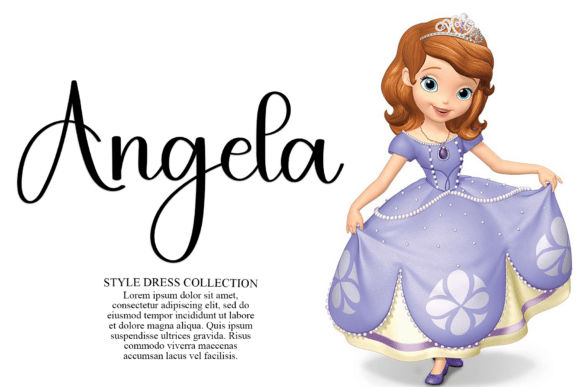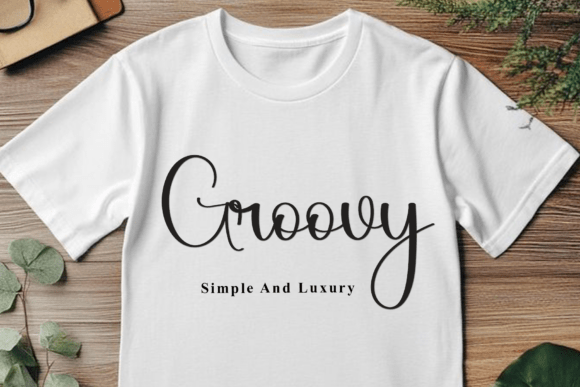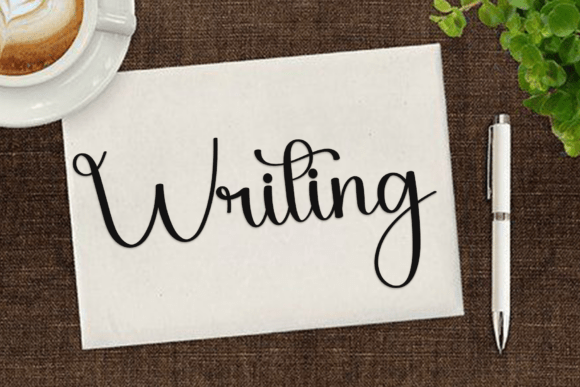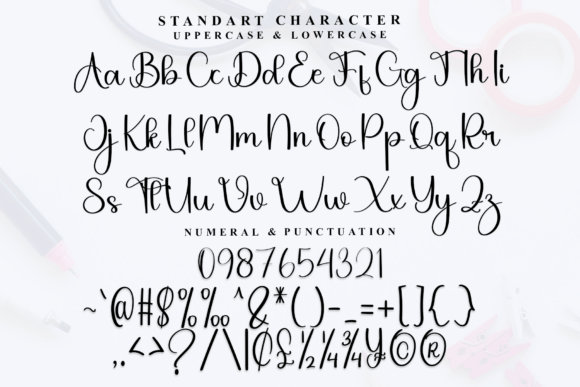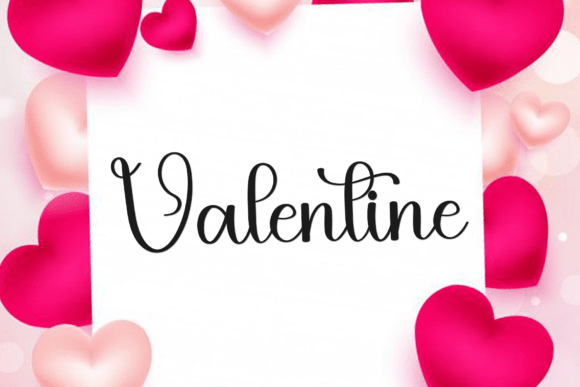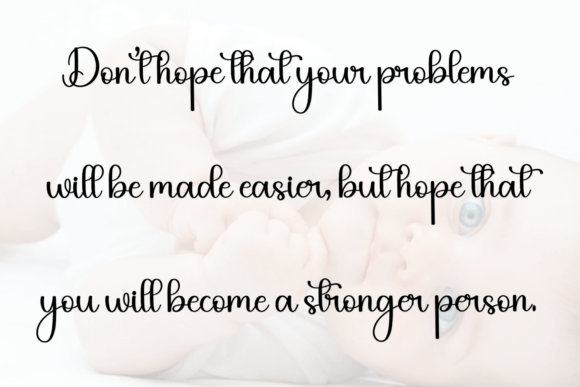
Introduction to Smilling Font
Have you ever found yourself browsing through a beautiful design on social media, wishing you had the perfect font to match its creative vibe? That’s exactly what happened to me when I stumbled upon a stunning invitation for a friend’s birthday party. The playful, hand-drawn font immediately caught my attention, and I couldn’t help but wonder where I could find it. That’s when I discovered the Smilling Font – a delightful, casual font that exudes warmth and friendliness.
As a designer, I can attest to the value of having a high-quality design resource like the Smilling Font in your toolkit. With its round, playful strokes and charming aesthetic, this font is perfect for adding a fun and unique touch to any creative project. Whether you’re working on a personal project, designing social media graphics, or creating invitations, the Smilling Font is sure to bring a smile to your design.
Key Features of Smilling Font
- High-quality, unique design ideal for creative projects, with a transparent background for easy customization.
- Font size: 12,000+ glyphs, including a wide range of characters, symbols, and languages, making it suitable for international projects.
- Resolution: High-resolution design, perfect for print and digital applications, including logos, branding, and packaging materials.
- Unique characteristics: The Smilling Font features a playful, hand-drawn style with a mix of modern and vintage elements, adding a touch of personality to any design project.
- Design resource: The font is designed to be versatile and adaptable, making it an excellent choice for a wide range of creative projects, from logos and branding to editorial and advertising materials.
Honest Review: Smilling Font
I recently stumbled upon the Smilling Font and was excited to give it a try. The font has a playful, creative vibe that’s perfect for a design project that needs a fun touch.
- High-quality design: The font is well-crafted and looks great on a transparent background, making it perfect for creative projects that need a bit of personality.
- Perfect for creative projects: The font is ideal for use in branding, advertising, or any other project that needs a fun, eye-catching touch.
- Not ideal for formal projects: While the Smilling Font is perfect for creative projects, it may not be the best choice for formal documents or projects that need a more professional look.
- Not as versatile as some other fonts: While the Smilling Font is great for certain projects, it may not be as versatile as some other fonts that can be used in a wider range of contexts.
Overall, I’m impressed with the Smilling Font and think it’s a great addition to any designer’s toolkit. While it may have some limitations, it’s a high-quality font that’s perfect for creative projects that need a fun, playful touch.
Smilling Font
The Smilling Font is a high-quality design resource perfect for creative projects. With a transparent background and free download available, this font is a valuable addition to any designer’s toolkit.
Tips for Getting the Most Out of Smilling Font
To get the most out of the Smilling Font, use it in conjunction with other design elements to create a cohesive and visually appealing design. Experiment with different font sizes and styles to add depth and interest to your project.
The Smilling Font is perfect for use in a variety of creative projects, including logos, social media graphics, and marketing materials. Its high-quality design and transparent background make it an ideal choice for designers looking to add a professional touch to their work.
What is the resolution of Smilling Font?
Smilling Font is designed at a high resolution of 300 DPI, ensuring that it looks crisp and clear in various design applications. This high-quality design resource is perfect for print projects, such as business cards, brochures, and posters, as well as digital designs, like website headers and social media graphics.